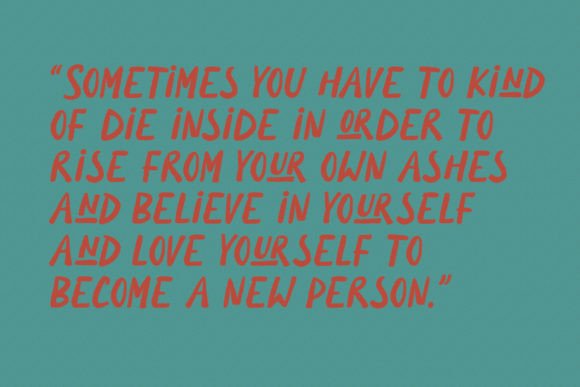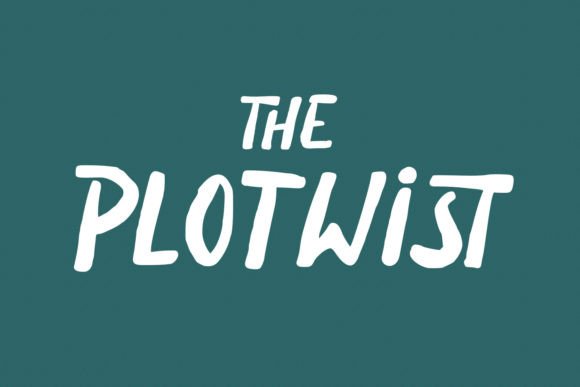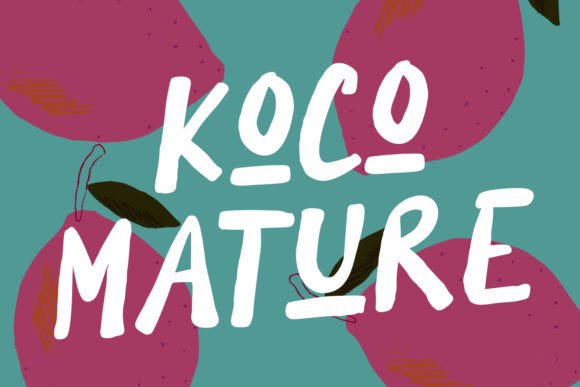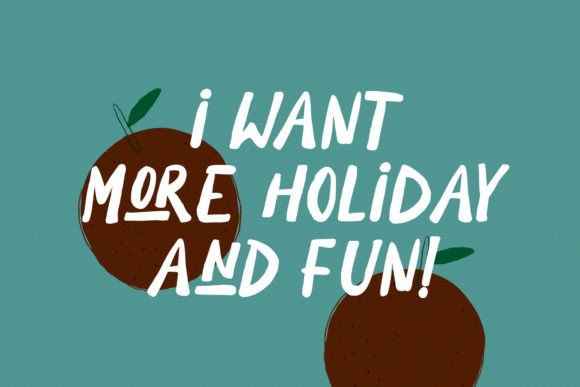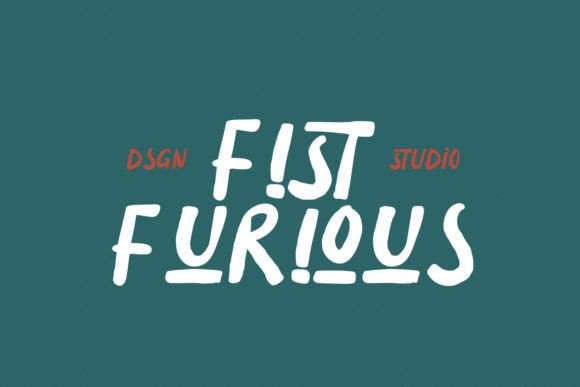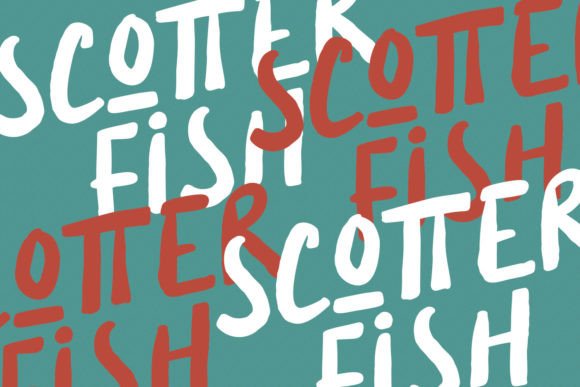
Bellokali Font: Elevate Your Designs with a Casual yet Quirky Handwritten Display Font
Are you tired of using the same old fonts in your designs? Do you want to add a touch of personality and whimsy to your creations? Look no further than the Bellokali font! This casual yet quirky handwritten display font is perfect for designers and crafters looking to take their designs to the next level.
What is Bellokali Font?
Bellokali is a unique and captivating font that is sure to make your designs stand out. With its handwritten style, it adds a personal touch to any project, making it perfect for a variety of applications. Whether you’re creating t-shirt designs, posters, stickers, digital designs, cards, or any other type of visual material, Bellokali is the perfect choice.
Key Features of Bellokali Font
- Casual yet quirky style: Bellokali has a relaxed, informal vibe that’s perfect for designs that need a bit of personality.
- Handwritten display font: This font is designed to make a statement, with bold and expressive lettering that’s sure to grab attention.
- Versatile: Bellokali can be used for a wide range of projects, from t-shirt designs and posters to stickers and digital designs.
- Easy to read: Despite its quirky style, Bellokali is still easy to read, making it perfect for designs that need to communicate a message.
Uses for Bellokali Font
Bellokali is a versatile font that can be used for a wide range of projects. Here are some ideas to get you started:
- T-shirt designs: Add a touch of personality to your t-shirt designs with Bellokali’s quirky style.
- Posters: Create eye-catching posters that grab attention with Bellokali’s bold and expressive lettering.
- Stickers: Add a personal touch to your stickers with Bellokali’s handwritten style.
- Digital designs: Use Bellokali to add a touch of whimsy to your digital designs, such as social media graphics and blog posts.
- Cards: Create unique and personalized cards for special occasions with Bellokali’s casual yet quirky style.
Why Choose Bellokali Font?
So why choose Bellokali font for your designs? Here are just a few reasons:
- Unique style: Bellokali has a one-of-a-kind style that’s sure to make your designs stand out.
- High-quality: Bellokali is a high-quality font that’s designed to produce crisp and clear results, even at small sizes.
Tips for Using Bellokali Font
Here are a few tips for getting the most out of Bellokali font:
- Experiment with different sizes: Bellokali looks great at a variety of sizes, so don’t be afraid to experiment to find the perfect size for your design.
- Pair with other fonts: Bellokali can be paired with other fonts to create a unique and interesting look.
- Use it sparingly: Because Bellokali is a bold and expressive font, it’s best used sparingly to add emphasis to key words or phrases.